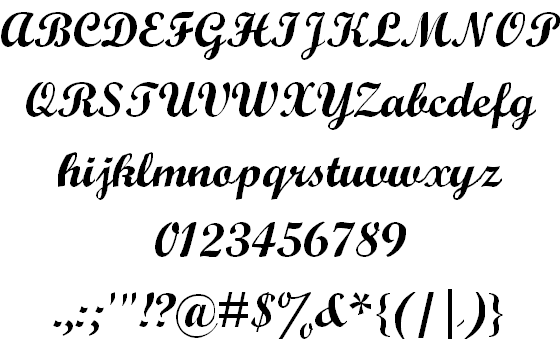
Free Wrexham Script Font
Free wrexham script font for graphic designers that need to present their work in a professional way. This typeface file was found from the amazing source called Font Space. This is absolutely beautiful font so you can easily make world-class designs.